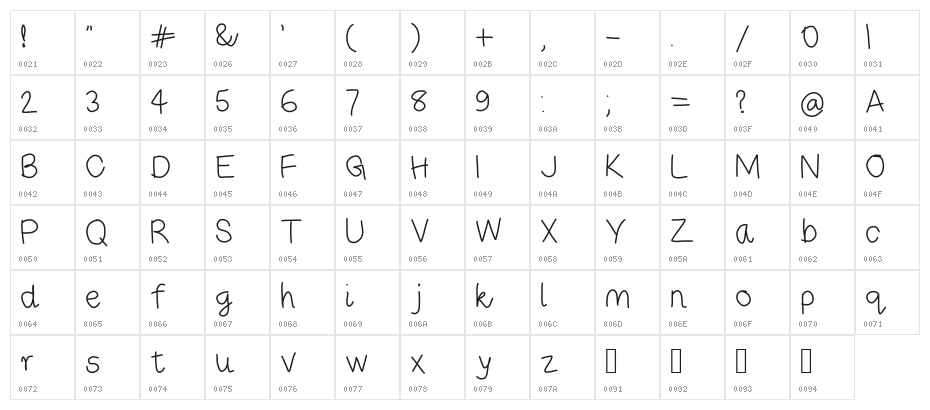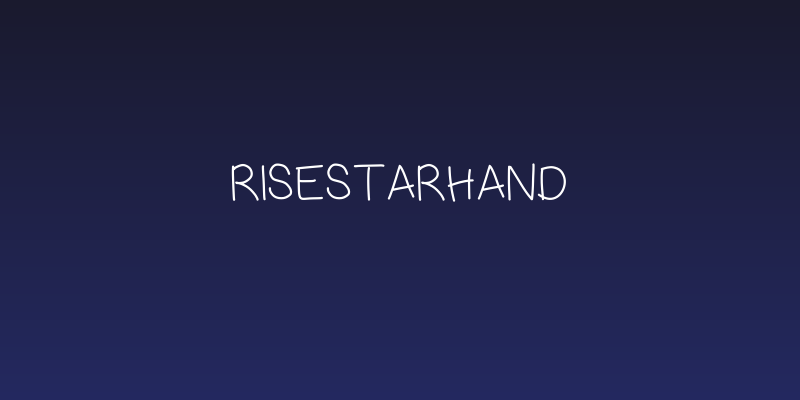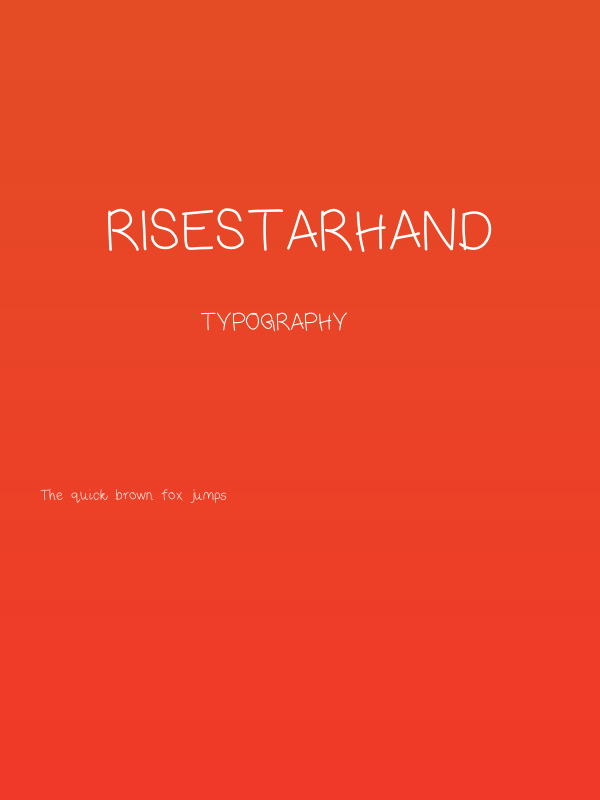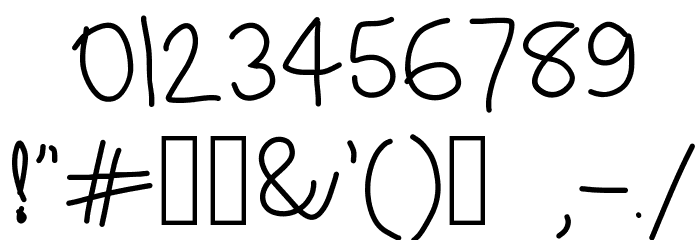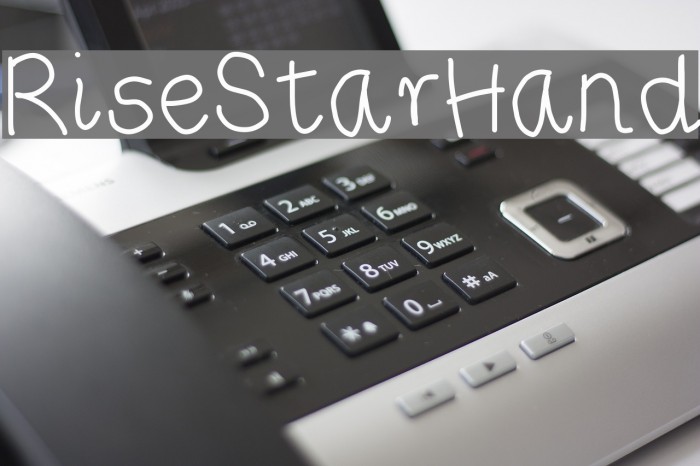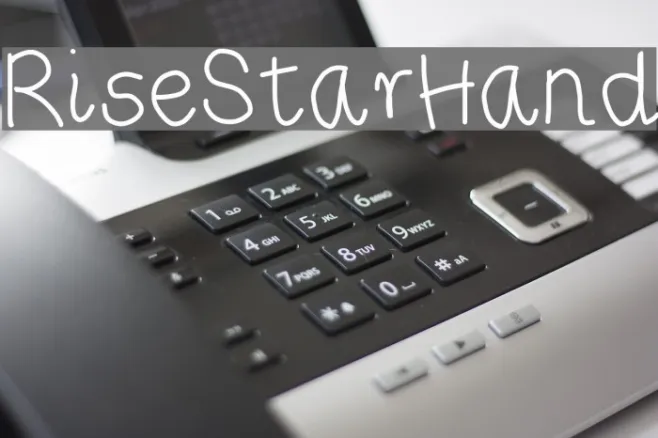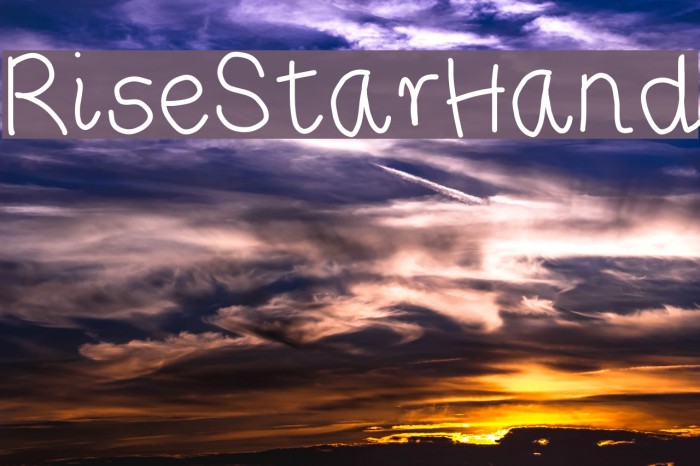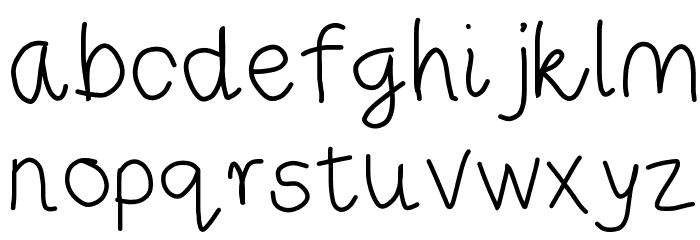
RiseStarHand Font
RiseStarHand Description
This font features a playful and casual handwritten style, characterized by its smooth, rounded strokes and slightly irregular letterforms. The uppercase letters are bold and confident, while the lowercase letters maintain a friendly and approachable appearance. The numerals are clear and easy to read, complementing the overall informal aesthetic. Special characters are well-integrated, maintaining the font's cohesive look. The font's design is versatile, suitable for projects that require a personal touch or a relaxed vibe.
| Proposed Projects | Ideal for greeting cards, children's books, casual branding, and social media graphics. |